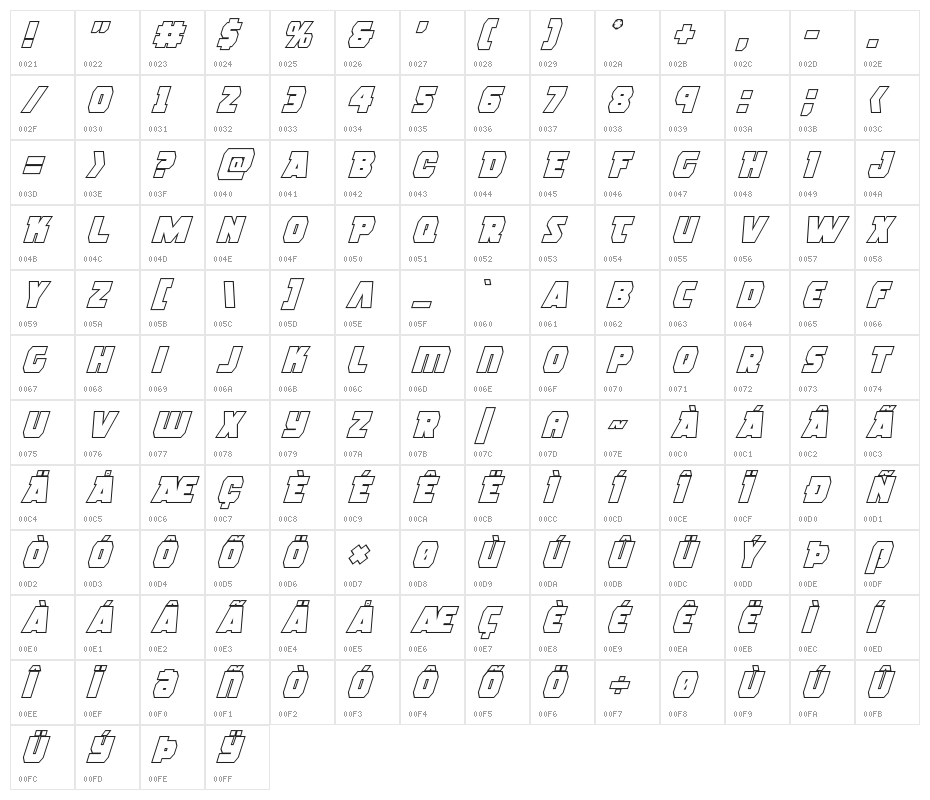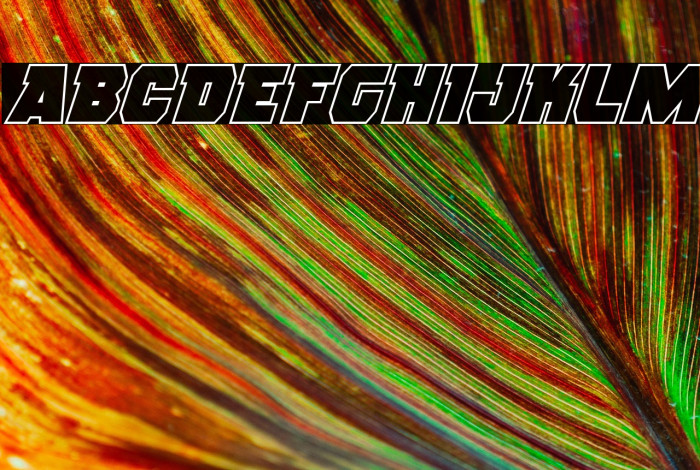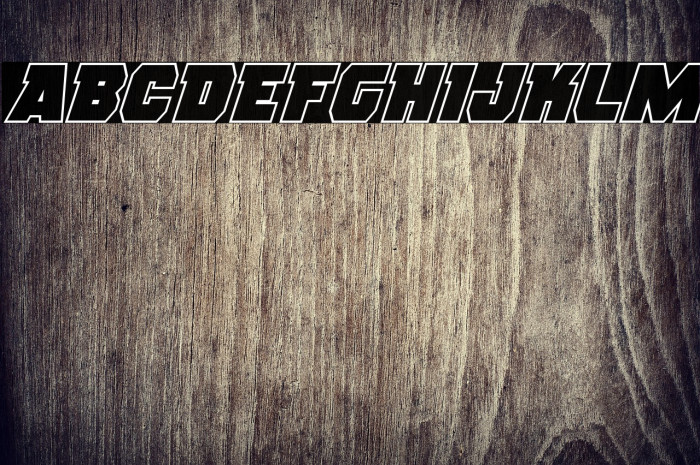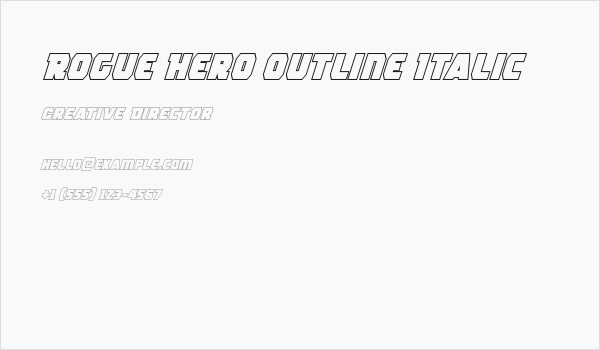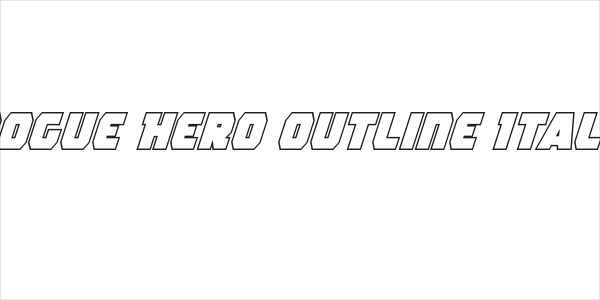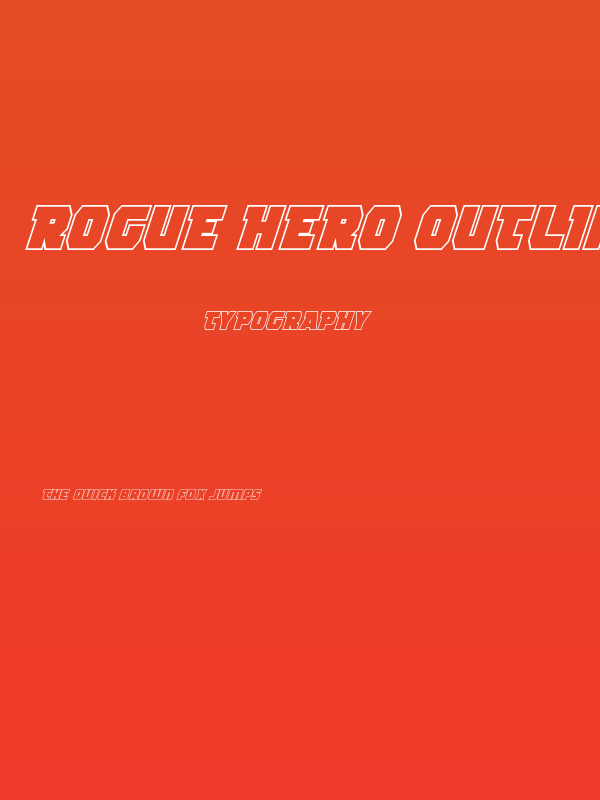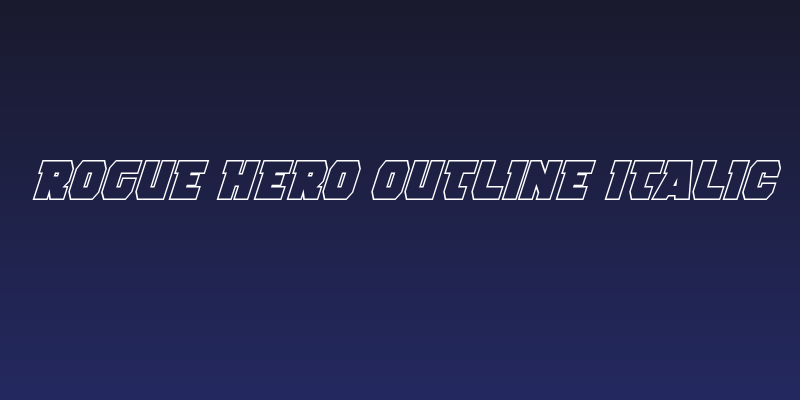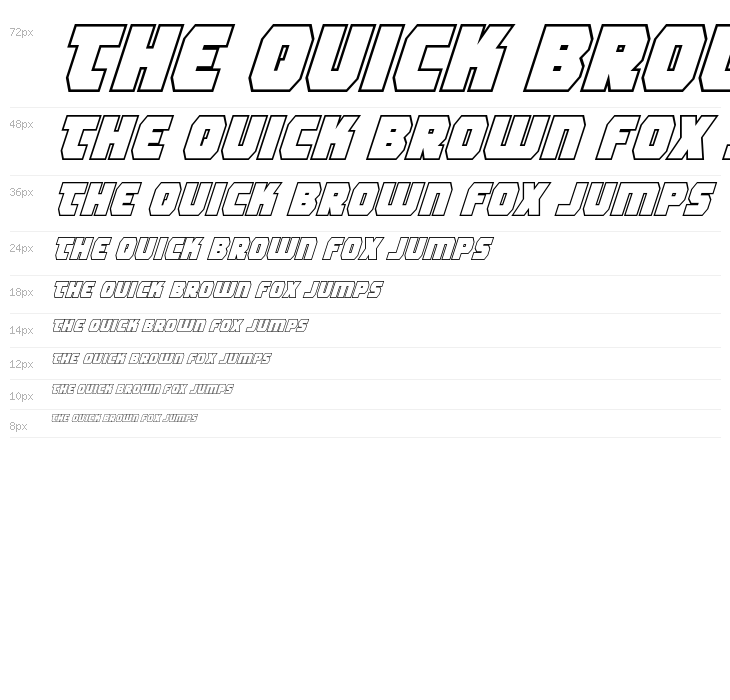
Rogue Hero Outline Italic Font
Rogue Hero Outline Italic Description
This font features a bold, outlined style with a distinct italic slant, giving it a dynamic and energetic appearance. The uppercase and lowercase letters are designed with a consistent outline that emphasizes their geometric shapes. The numbers and special characters follow the same outlined and italicized style, ensuring uniformity across all characters. The font's boldness and outline make it stand out, making it suitable for attention-grabbing designs. Its italic nature adds a sense of motion and modernity, making it ideal for contemporary projects.
| Proposed Projects | Ideal for sports branding, dynamic posters, video game titles, and modern advertising campaigns. |